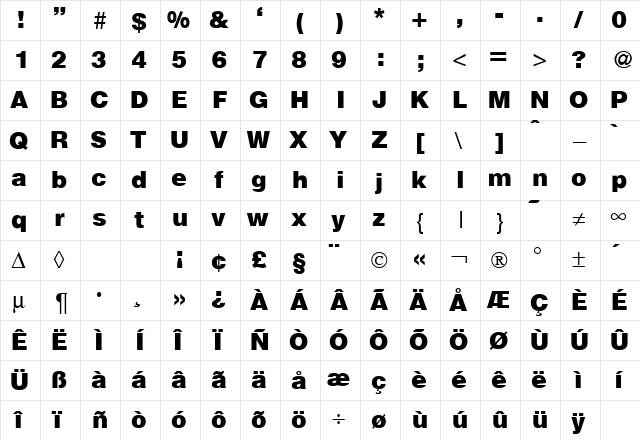
HegelBlack Regular
Design Context for HegelBlack Typeface
HegelBlack offers clean, dependable letterforms without strong stylistic allegiance, making it a practical choice for designers who need flexibility.
Pro Tip: Pair HegelBlack with a font of contrasting weight or personality to build a more expressive typographic hierarchy.